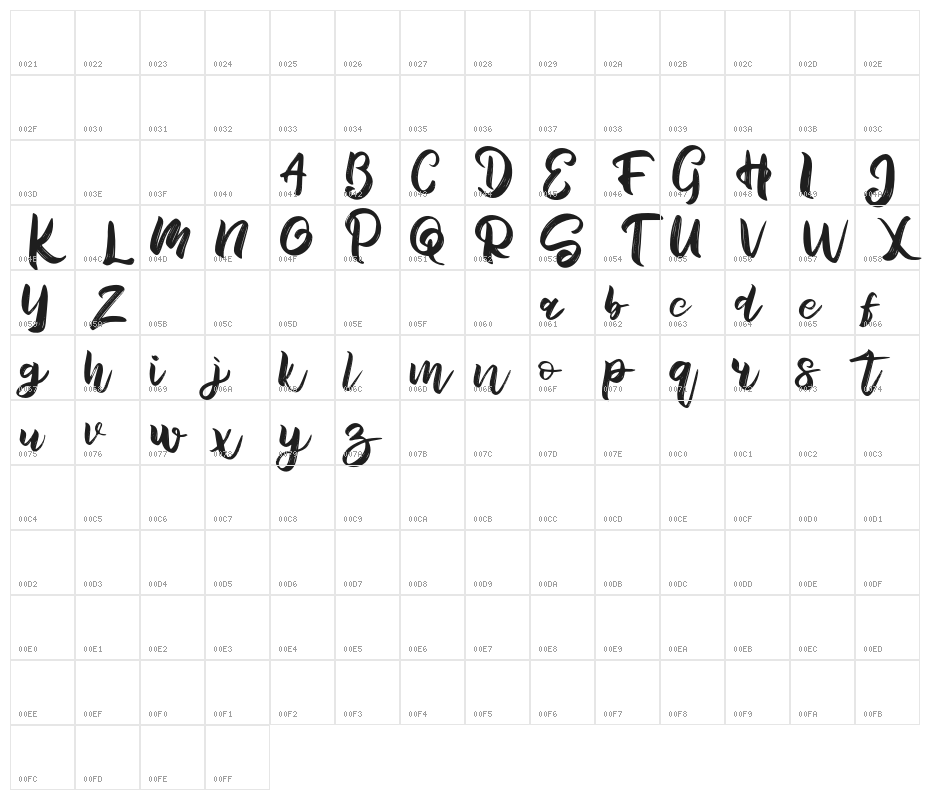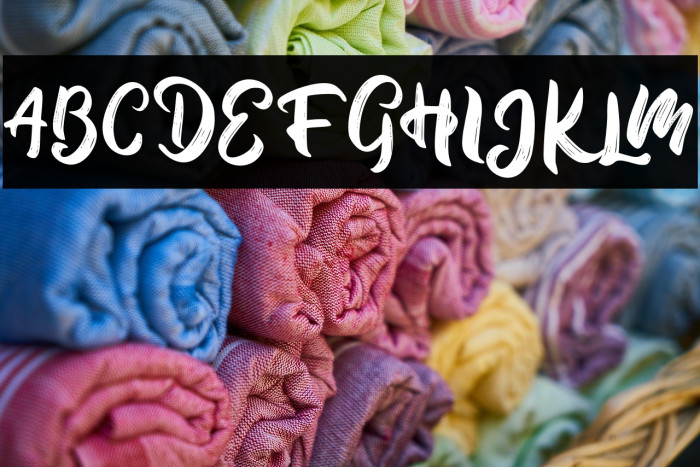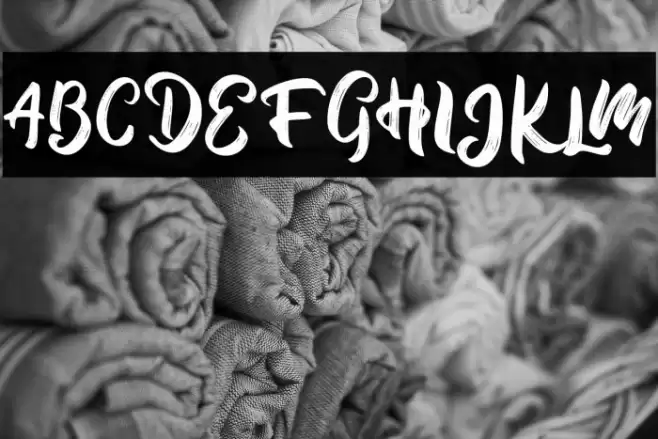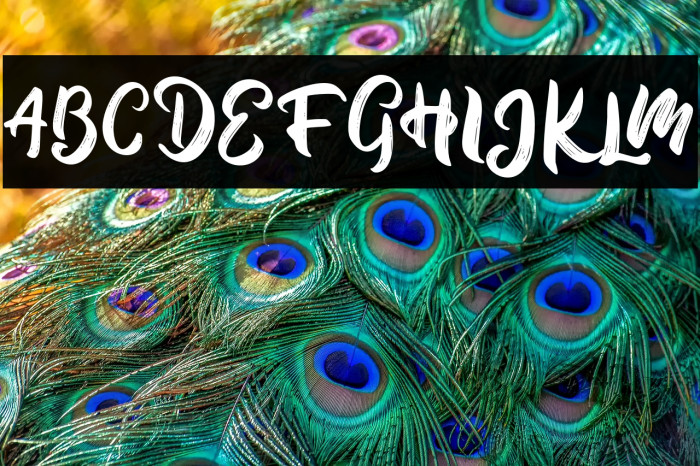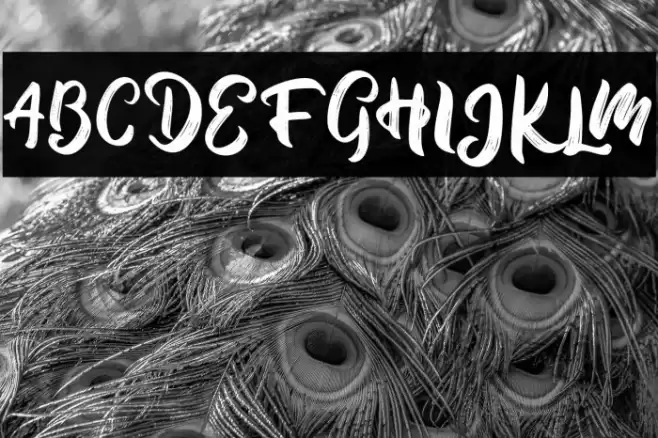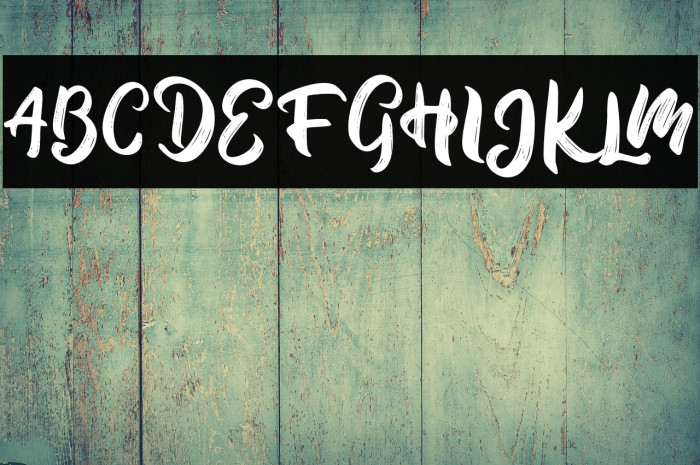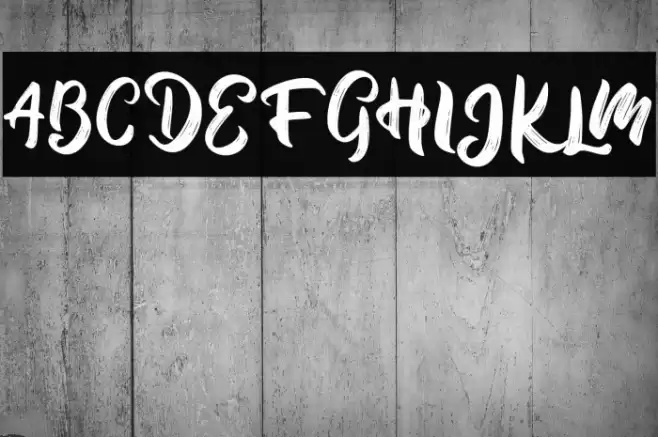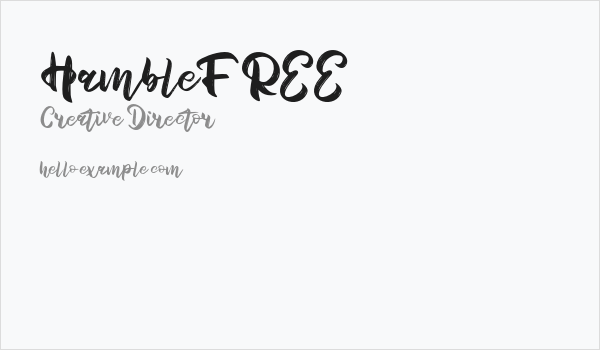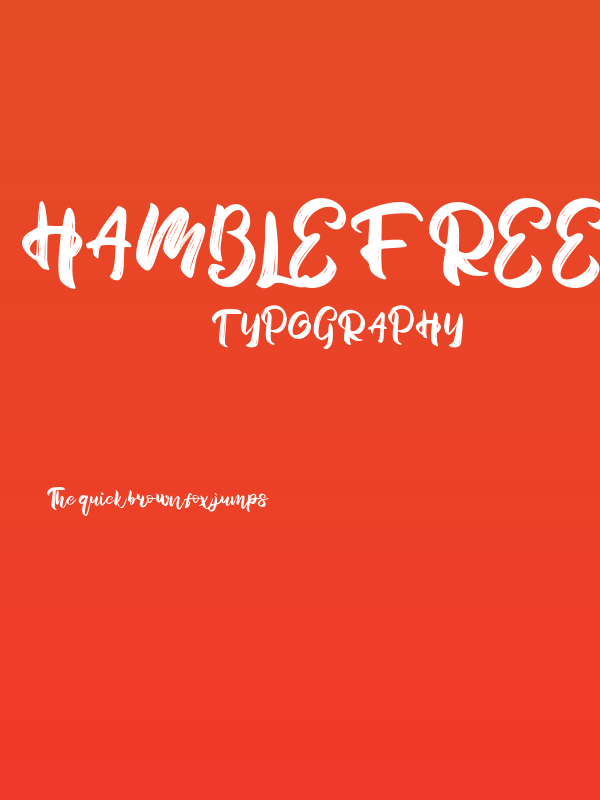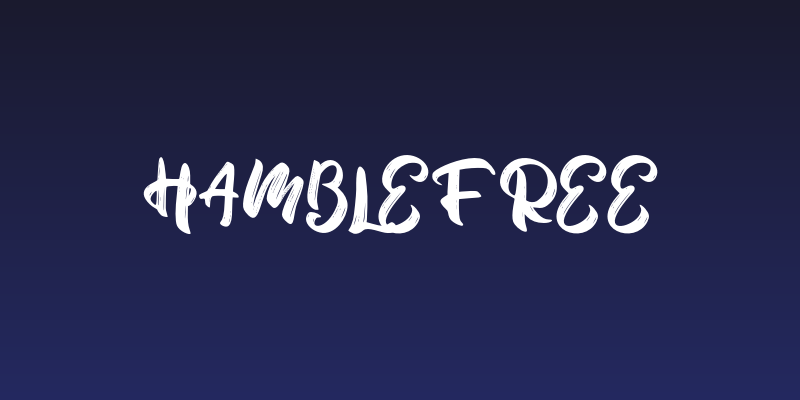
HambleFREE Font
HambleFREE Description
This font features a bold, expressive script style with a hand-painted appearance. The strokes are thick and dynamic, giving it a lively and energetic feel. The letters are connected in a fluid manner, enhancing its cursive nature. The uppercase and lowercase letters maintain a consistent style, with playful loops and swashes that add character. The numbers and special characters are equally stylized, ensuring a cohesive look across all elements. This font is ideal for projects that require a personal touch or a creative flair.
| Proposed Projects | Ideal for branding, invitations, greeting cards, posters, and social media graphics. |